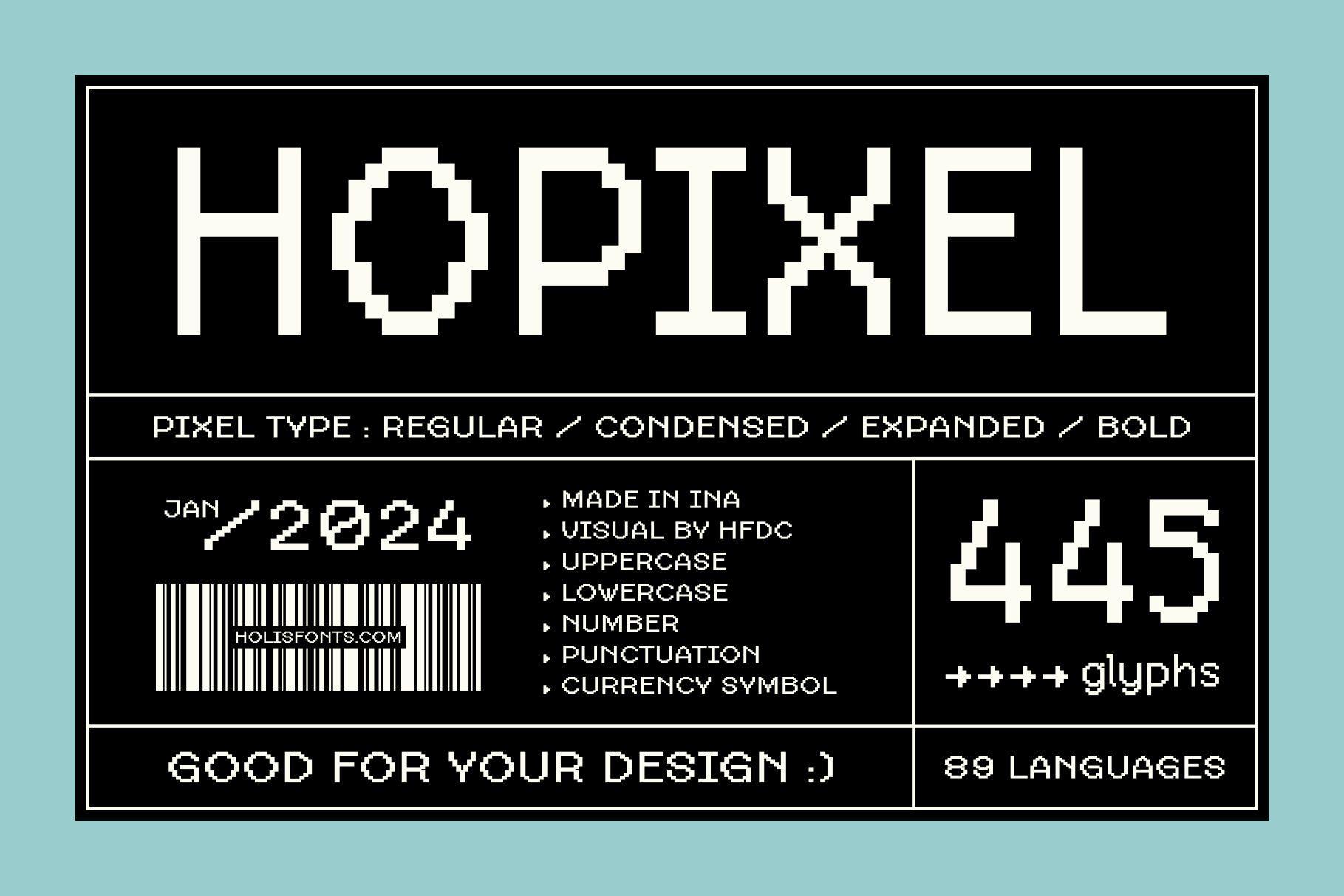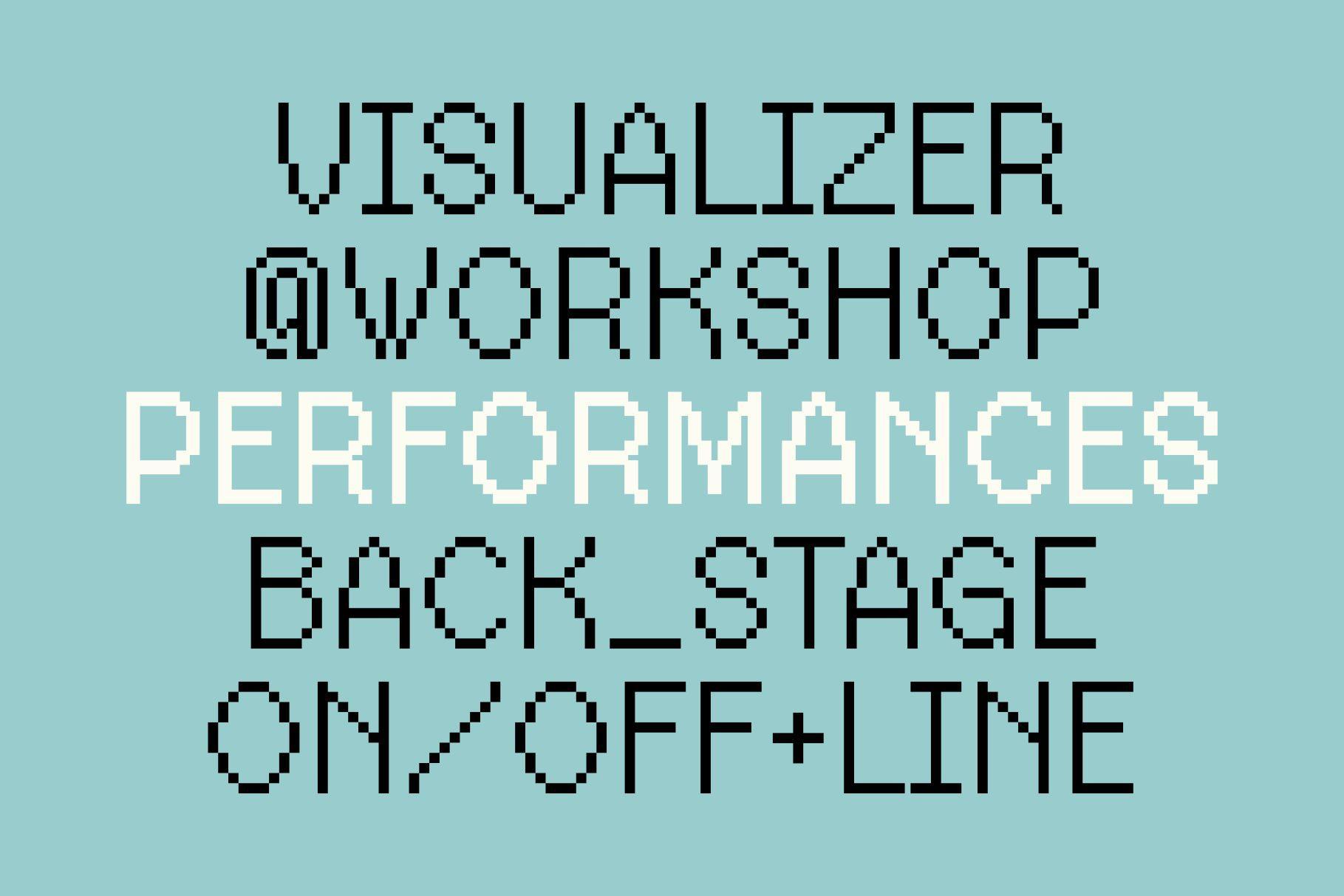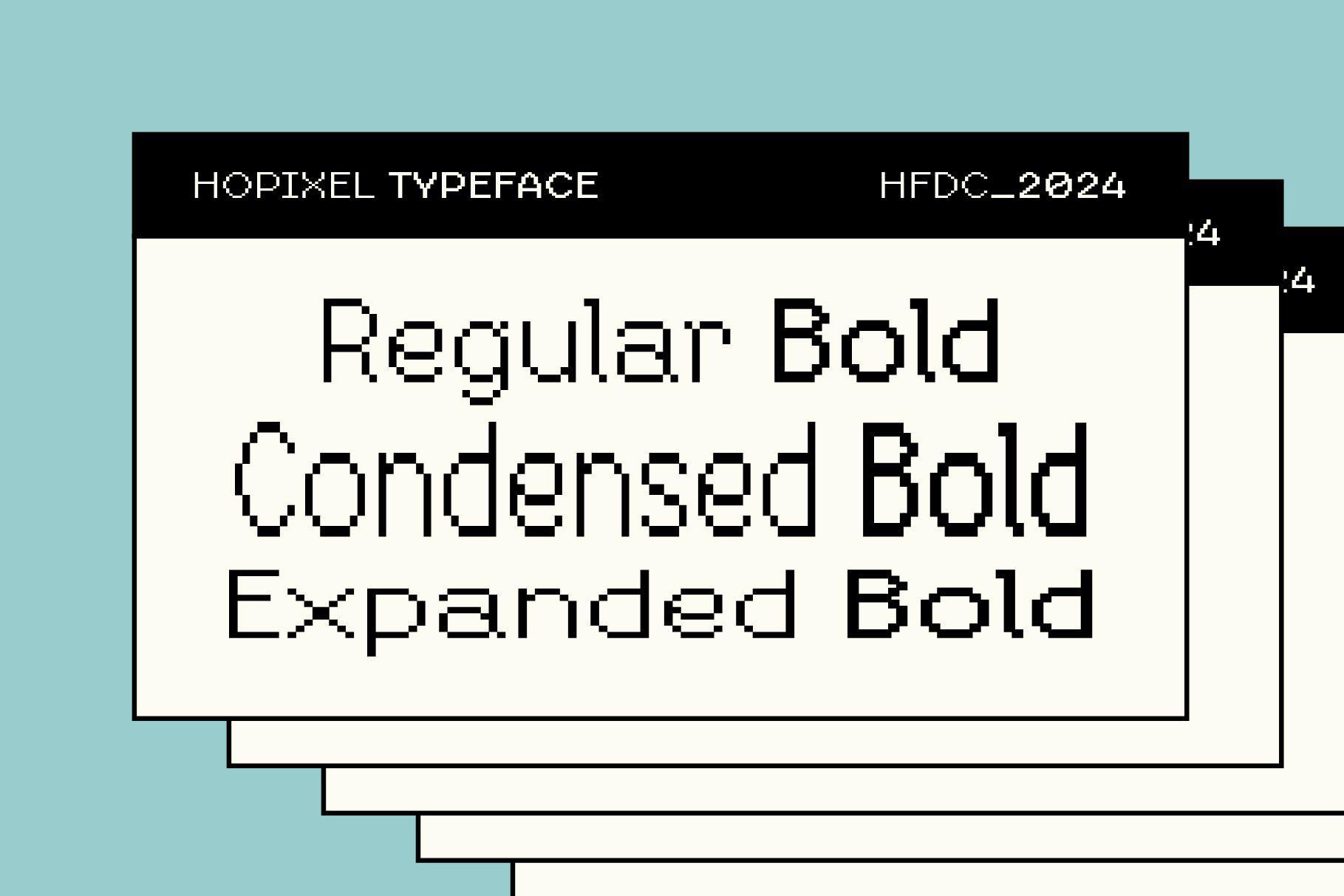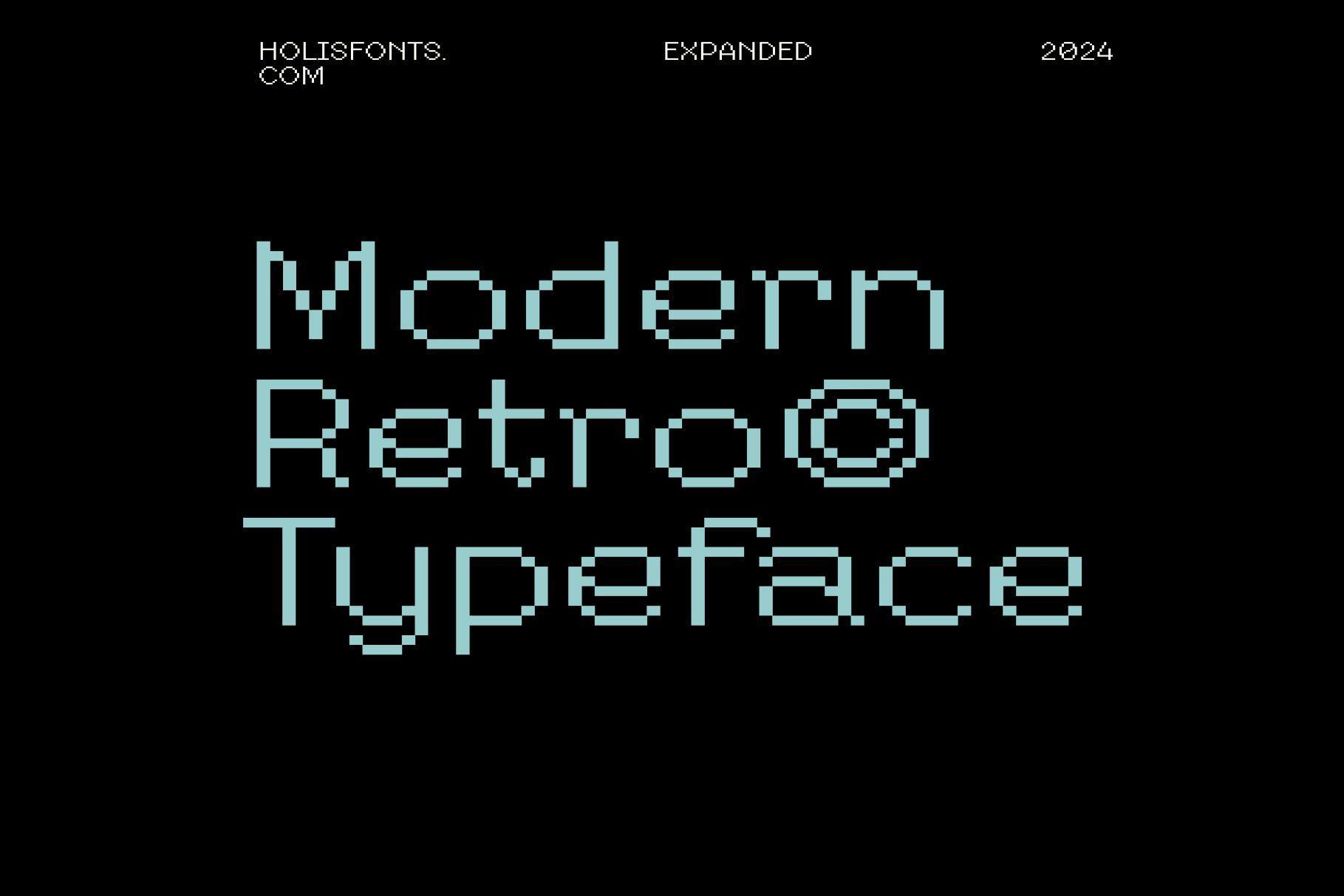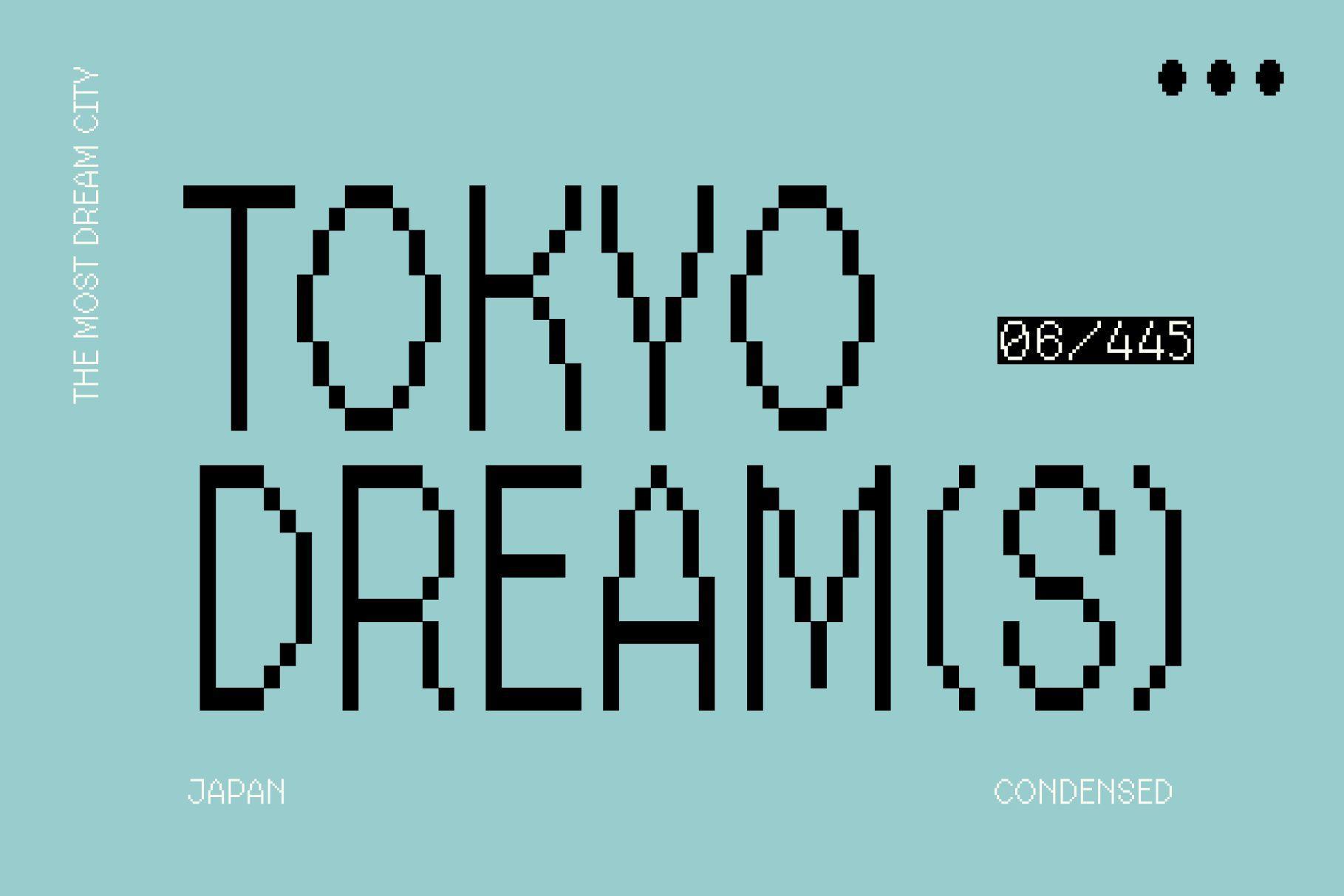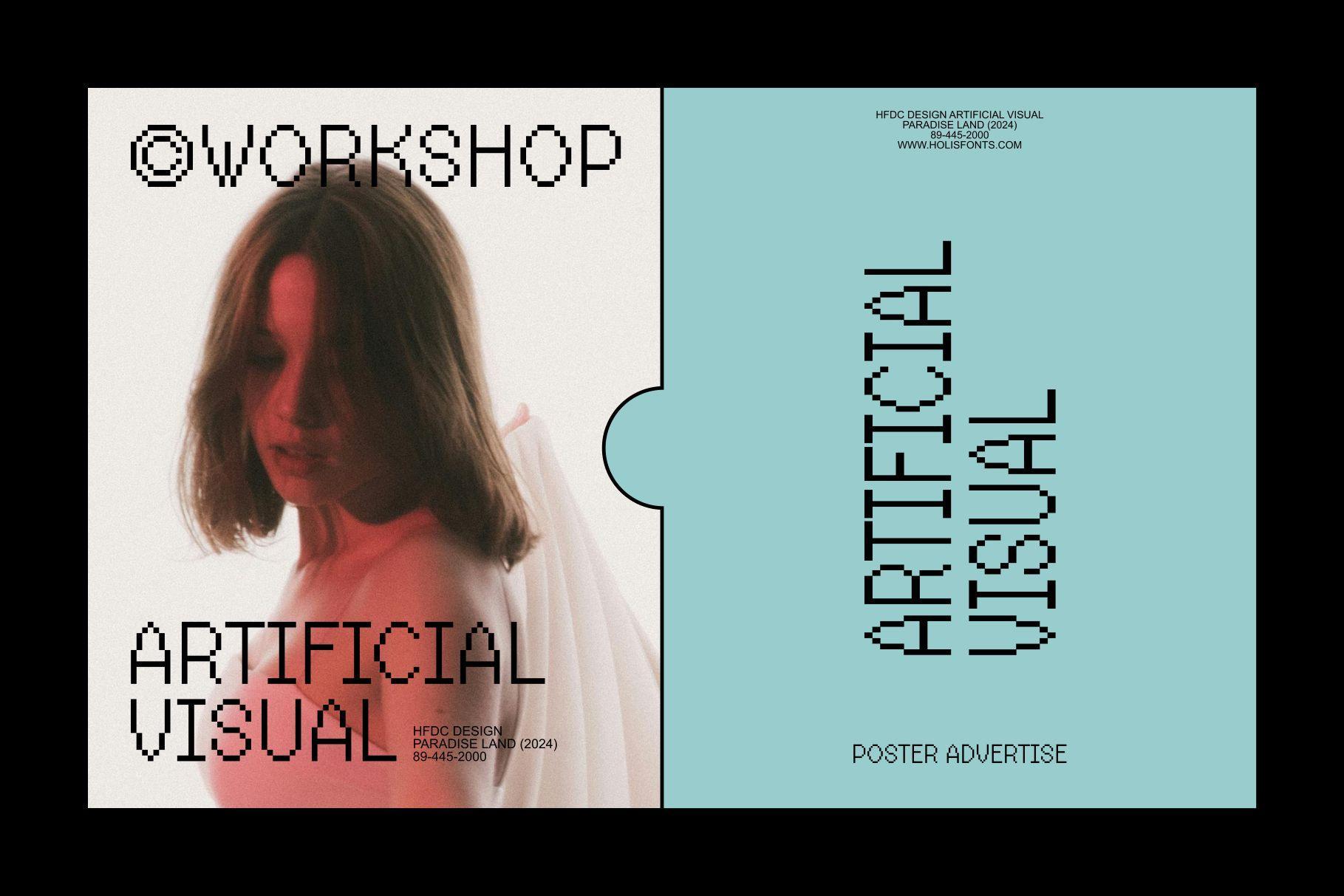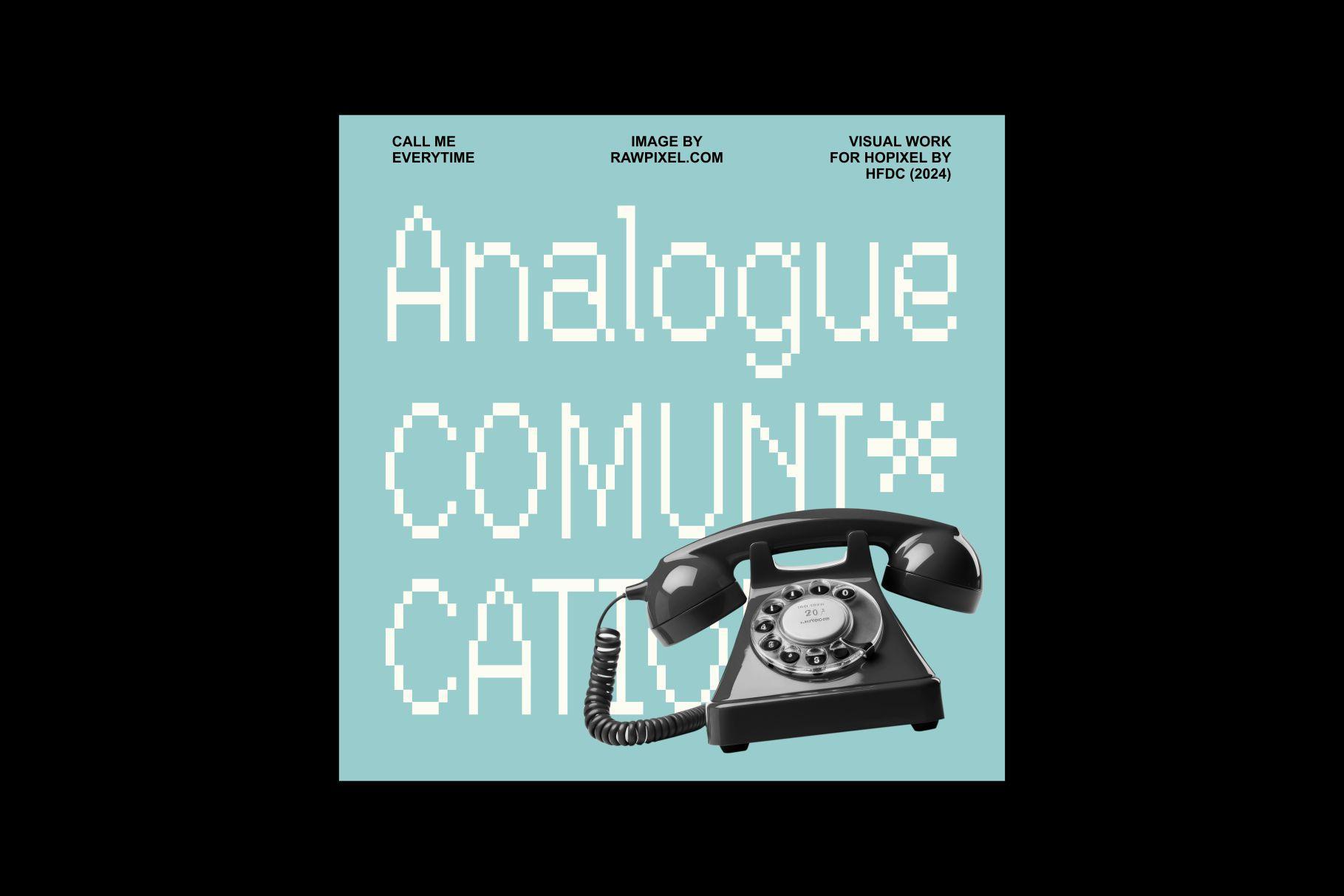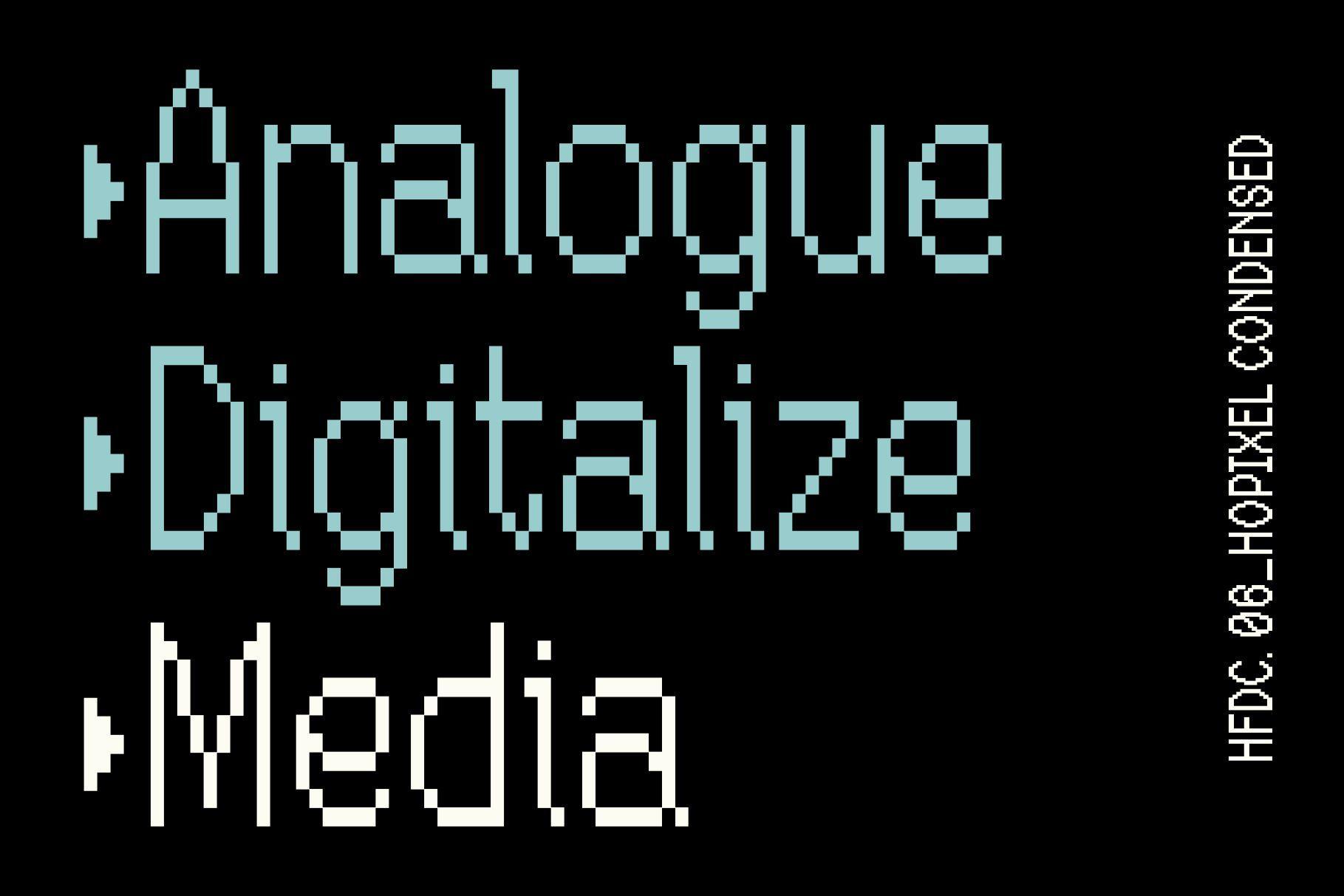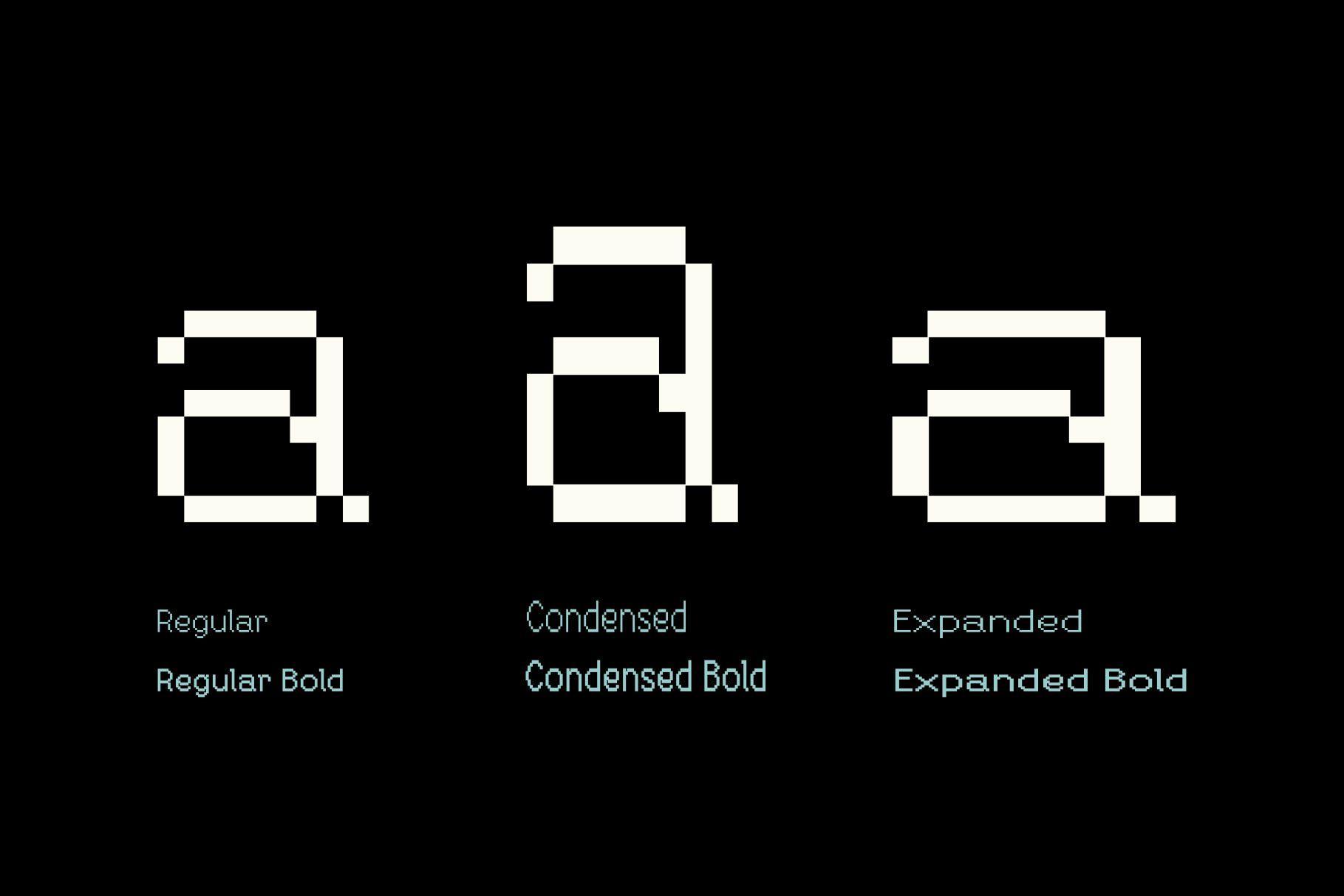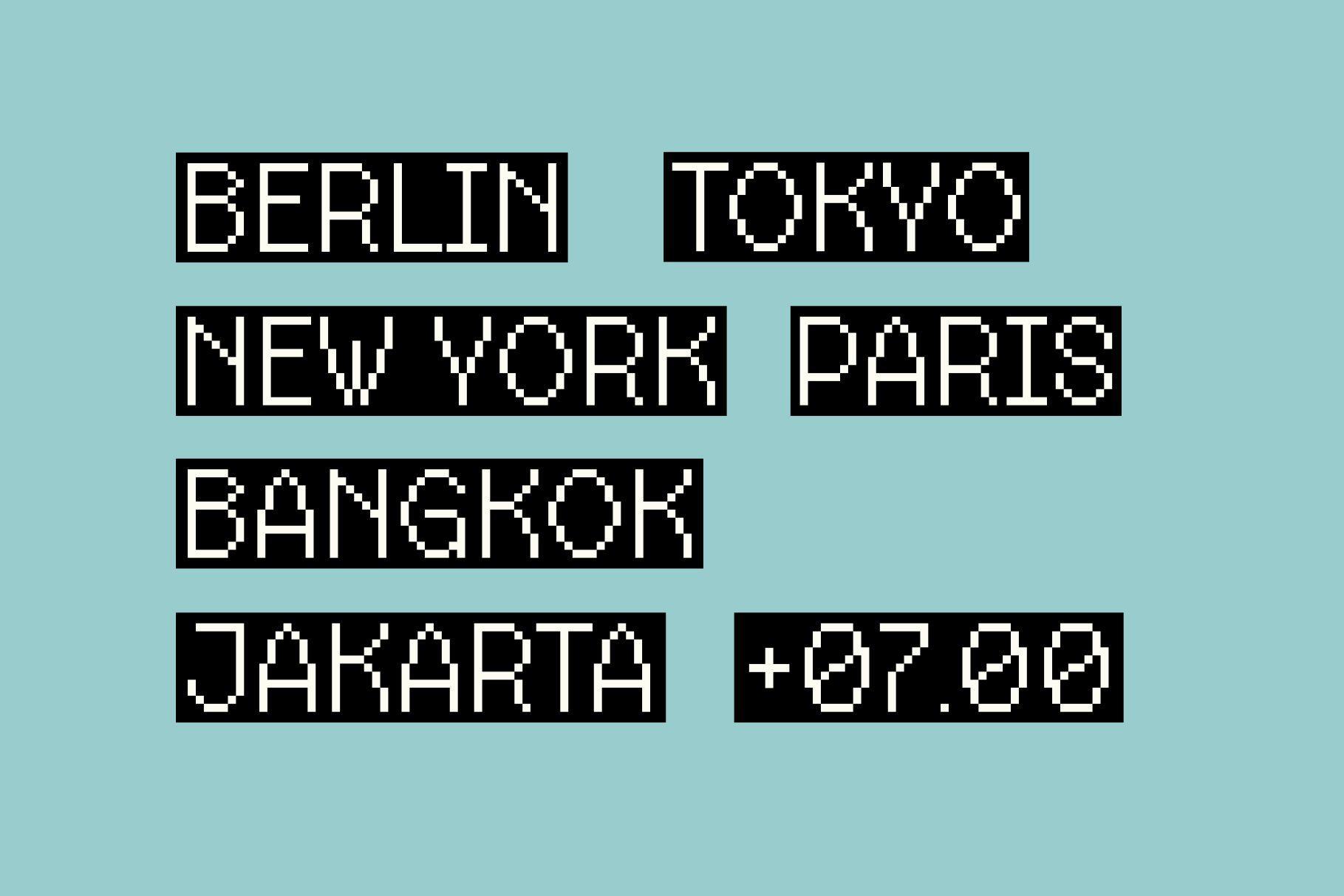
Hopixel Pixel Font Family
Hopixel is a pixel family font inspired by retro video games whose box has a very strong character, but is made as minimalistic as possible so that it feels a little elegant like a sans serif font. Available in 6 Weights Regular, Bold, Condensed, Bold Condensed, Expanded and Bold Expanded.
- Uppercase
- Lowercase
- Numeral
- Punctuation
- Currency Symbol